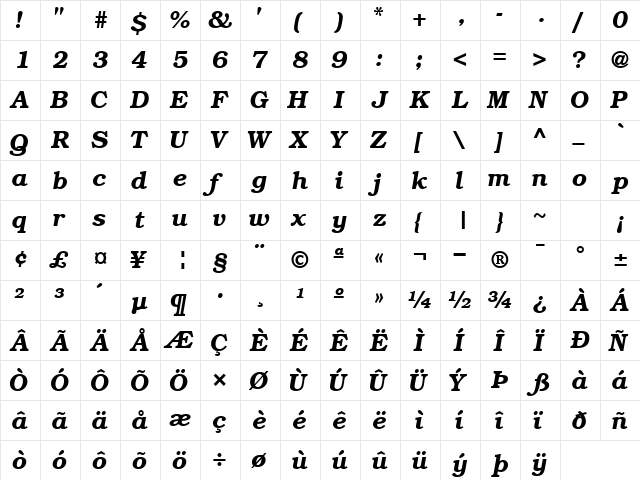
BookmanSSK SemiBoldItalic Font Preview
BookmanSSK SemiBoldItalic
BookmanSSK SemiBoldItalic Font Details
| Style | SemiBoldItalic |
Design Context for BookmanSSK Typeface
BookmanSSK takes a measured approach to typography — its balanced proportions and neutral character make it a reliable workhorse for both digital and print work. Its italic angle brings a sense of urgency and motion to the letterforms. The heavy weight commands attention and anchors typographic hierarchies.
Pro Tip: Use BookmanSSK for emphasis, pull quotes, and subheadings where its slanted energy can add rhythm to the layout.